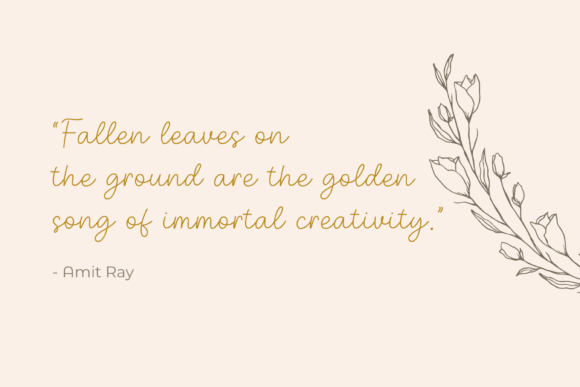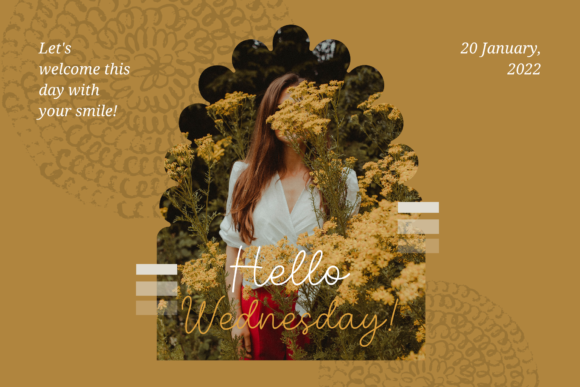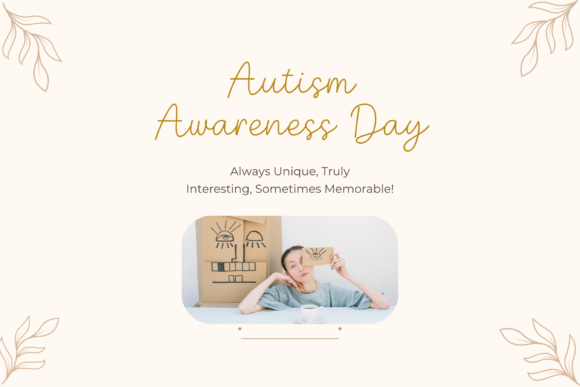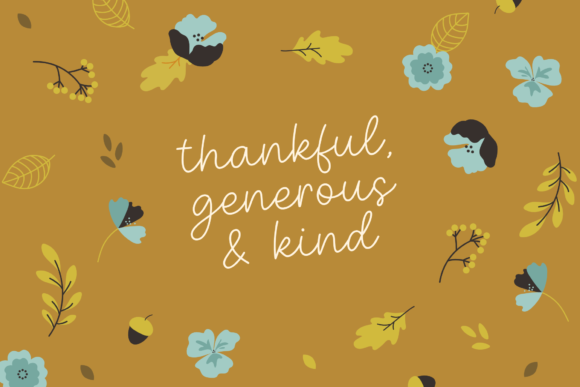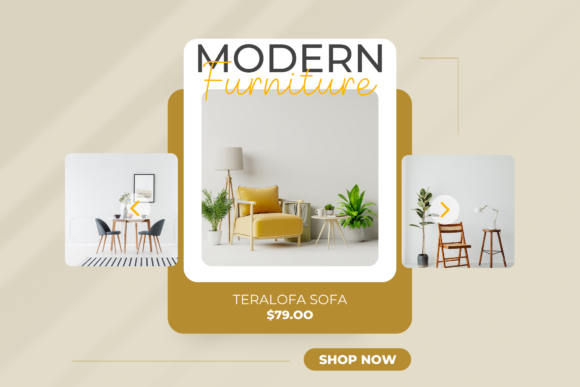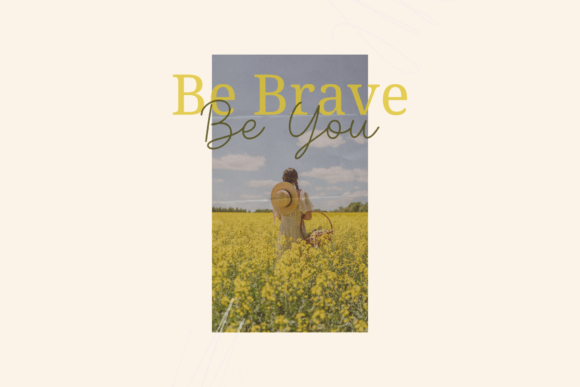
Introduction to Leafery Font
As a designer, there’s nothing quite like the rush of creating something beautiful from scratch. The moment when a project comes together, and all the elements align perfectly – it’s a feeling like no other. And that’s exactly what the Leafery Font is all about: bringing your creative vision to life with a high-quality, handwritten font that’s sure to make your design stand out.
Whether you’re working on a branding project, designing a t-shirt, or creating a product label, the Leafery Font is an invaluable resource that will elevate your design to new heights. Its unique, elegant script is perfect for adding a touch of sophistication and whimsy to your creative project. And the best part? It’s available for free download, making it an accessible and versatile design resource that’s sure to become a staple in your design toolkit.
Key Features of Leafery Font
- Unique characteristics include delicate, hand-drawn elements and intricate details, adding a touch of sophistication to any creative project.
- Perfect for use in branding, logos, invitations, and other design elements where a high-quality, elegant font is required.
Honest Review: Leafery Font
As a designer, I’m always on the lookout for high-quality design resources to elevate my creative projects. Recently, I came across the Leafery Font, and I was excited to give it a try.
First impressions are everything, and the Leafery Font certainly doesn’t disappoint. The font is beautifully designed, with a natural, organic feel that’s perfect for projects that require a touch of whimsy. ✨ The transparent background is also a nice touch, making it easy to use in a variety of contexts.
Here are some of the key features that make the Leafery Font stand out:
- Transparent background for easy use in a variety of contexts
- Beautifully designed, with a natural, organic feel
That being said, there are a few limitations to be aware of. ⚠️ The font is not as versatile as some other options, and may not be suitable for projects that require a more formal tone. Additionally, the font files are not as customizable as some other options.
Overall, I’m impressed with the Leafery Font. It’s a great addition to any designer’s toolkit, and is perfect for projects that require a touch of creativity and whimsy. ✨
Common Use Cases for Leafery Font
Leafery Font is commonly used in a variety of design projects, including wedding invitations, business cards, and social media graphics. Its transparent background makes it easy to use in combination with other design elements, allowing you to create a unique and visually appealing visual effect.